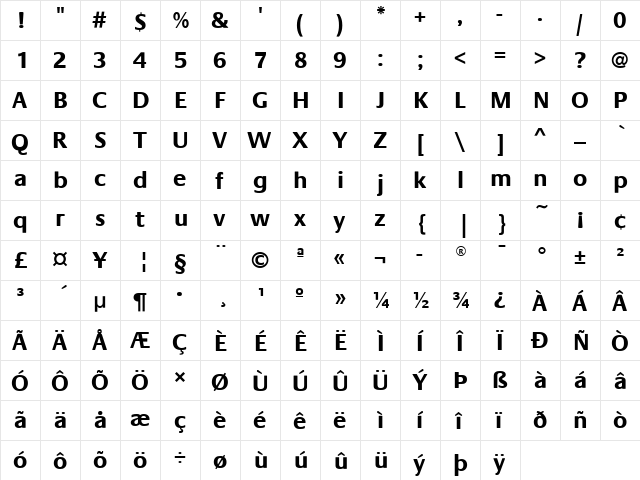
Praxis LT Regular Bold
| Foundry | Linotype Library GmbH |
Design Context for Praxis LT Regular Typeface
Praxis LT Regular takes a measured approach to typography — its balanced proportions and neutral character make it a reliable workhorse for both digital and print work. The heavy weight commands attention and anchors typographic hierarchies.